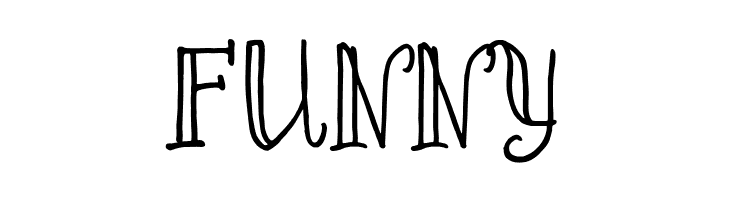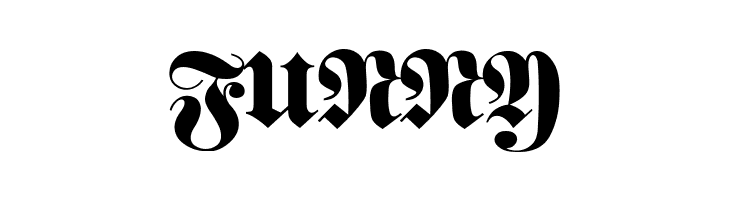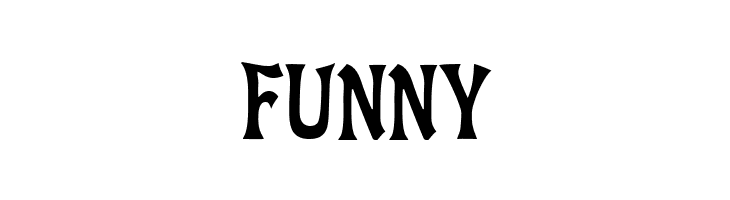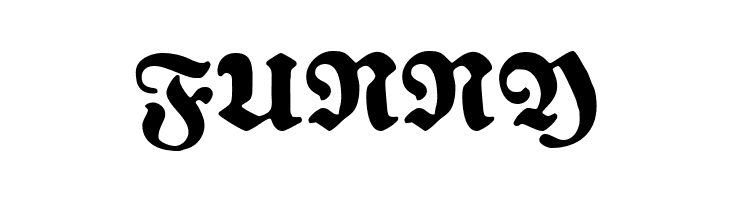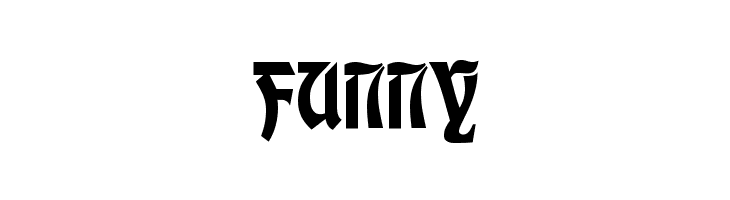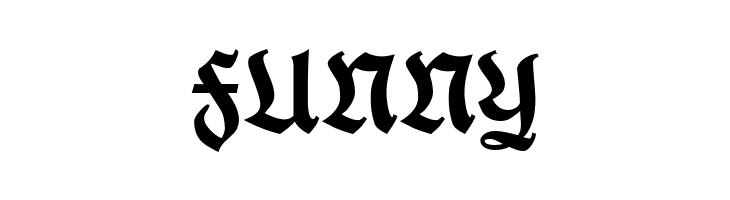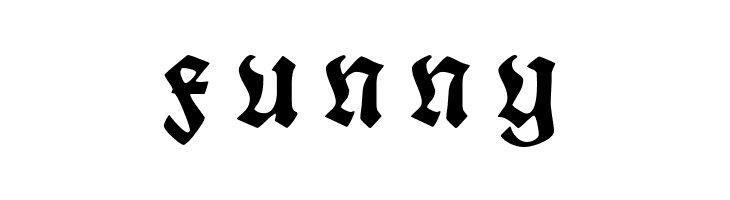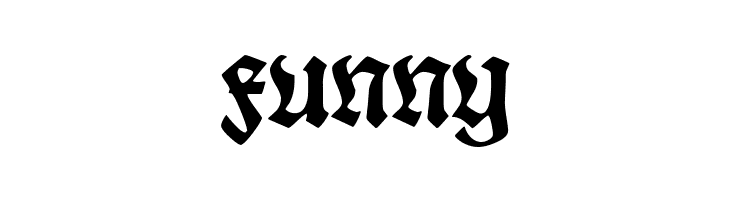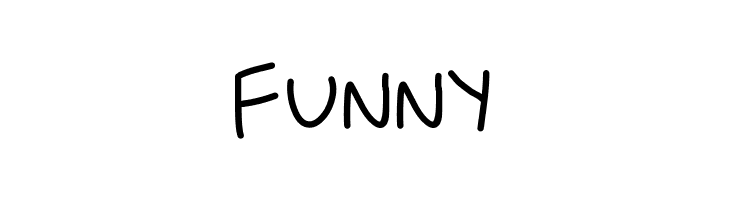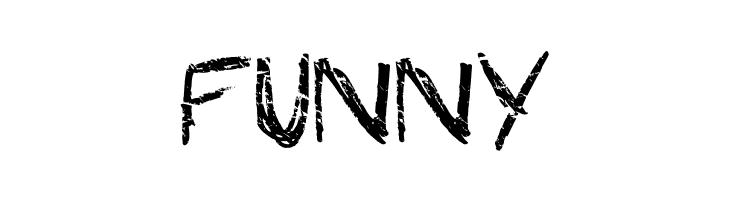
A bold and intricate Blackletter font with a traditional Gothic style.
A bold, blackletter font with intricate details and a historical feel.
A bold, dramatic blackletter style with sharp, angular strokes.
A bold, decorative Blackletter font with intricate details and historical elegance.
A bold, ornate Blackletter font with intricate details and a Gothic influence.
A bold, blackletter font with sharp, angular lines and intricate detailing.
A bold, dramatic serif font with angular serifs and a distinctive flair.
A bold, dynamic font with sharp edges and smooth curves, perfect for dramatic designs.
A bold, ornate blackletter font with intricate detailing, reminiscent of medieval scripts.
A bold, blackletter font with intricate, gothic-style letterforms.
A bold, Gothic-inspired font with intricate and angular letterforms.
A bold, rounded, and geometric sans-serif font with a modern aesthetic.
A bold, outlined geometric font with a modern and structured design.
A bold, decorative font with a vintage Western style.
A bold, brush-textured font with an energetic and artistic style.
A playful, handwritten font with rounded, consistent strokes and a casual feel.
A playful and decorative font featuring dinosaur-like creatures as characters.
A geometric, futuristic font with linear and angular design.
A bold, expressive font with brush-like strokes and a hand-drawn appearance.
A bold, hand-painted style font with expressive, uneven strokes.
A pixelated, retro-style font with a geometric, grid-like design.
A bold, puzzle-inspired font with interlocking segments and a playful aesthetic.
A bold, pixelated font with a jigsaw puzzle design.
A playful, dotted decorative font with a whimsical style.
A playful, handwritten font with whimsical curves and lively strokes.
A casual, handwritten-style font with a ballpoint pen aesthetic.
A hand-drawn, pencil-like font with a sketchy, artistic style.
A bold, rounded, hand-drawn font with a playful and casual style.
A casual, handwritten font with a playful and informal style.
A modern, geometric font with clean lines and rounded corners, offering a futuristic look.
A whimsical, vine-adorned font with a hand-drawn, artistic style.
A rugged, distressed font with a hand-drawn, artistic style.
A playful, handwritten font with consistent strokes and a casual style.
A bold, playful handwritten font with a casual and friendly style.
A bold, italicized handwritten font with a casual and dynamic style.